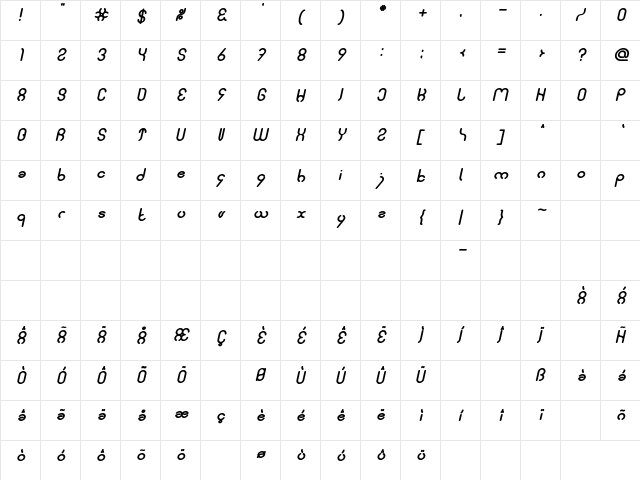
simple font Negreta cursiva
| Style | Negreta cursiva |
Design Context for simple font Typeface
simple font flows with the natural rhythm of handwritten lettering, making it ideal for designs that call for warmth and personal expression. Its bold stroke weight gives it real presence on the page.
Font Pairing: Combine simple font with a simple geometric sans for maximum contrast — the tension between flowing curves and clean structure is a classic typographic pairing.
Pro Tip: Pair simple font with a clean sans-serif for supporting text. The contrast between fluid script and geometric structure creates an elegant typographic hierarchy.